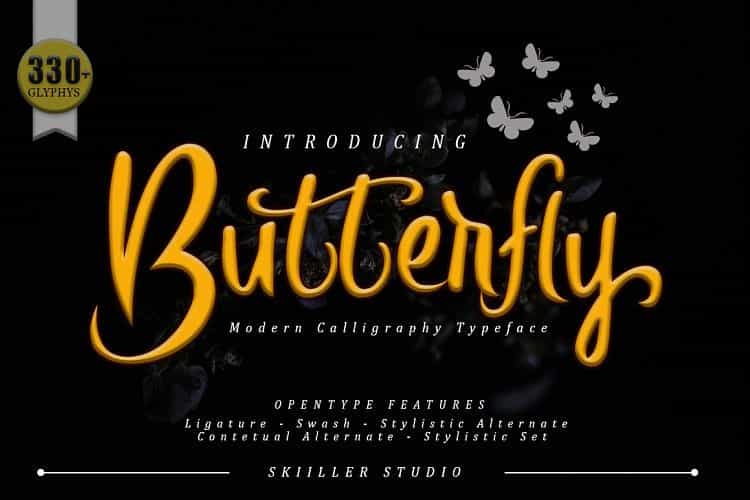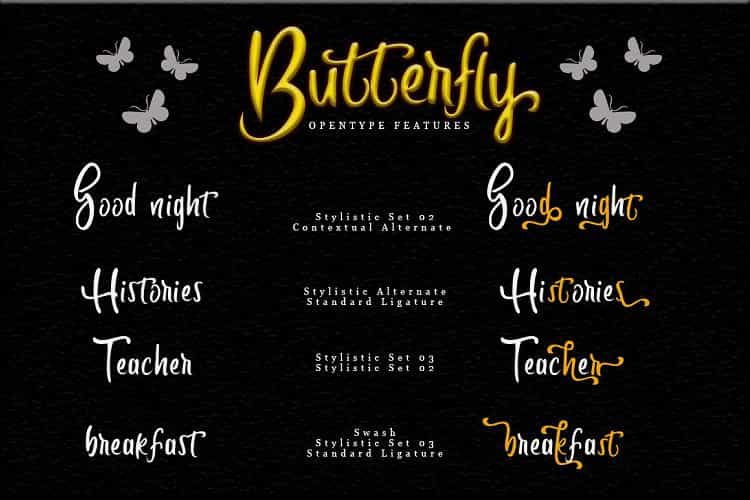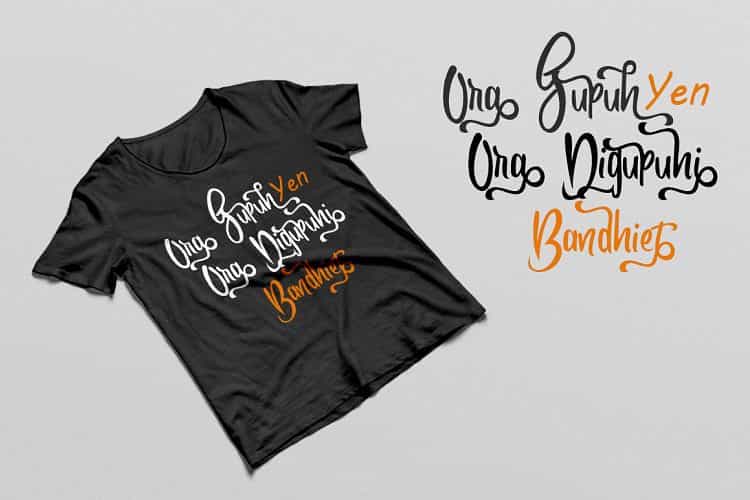
Butterfly is a sylish signature script contains two font styles which are both in uppercase & lowercase letters. This font also supports multilingual. It looks great as a text overlay to images, works fine as a headline and it adds an elegant touch to your designs.